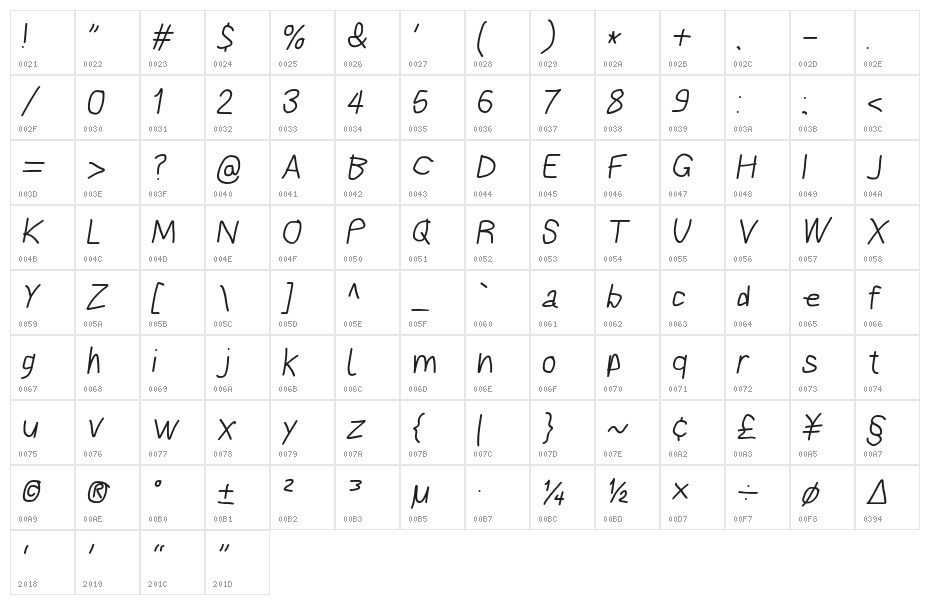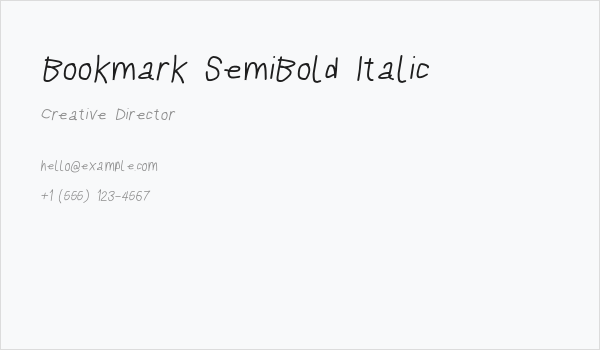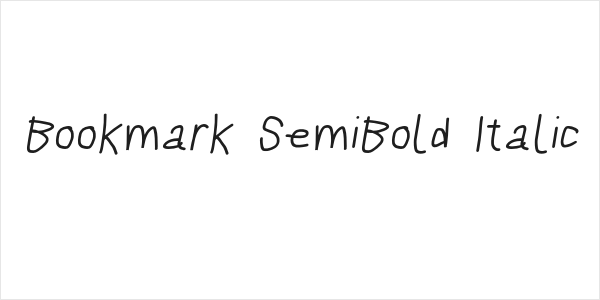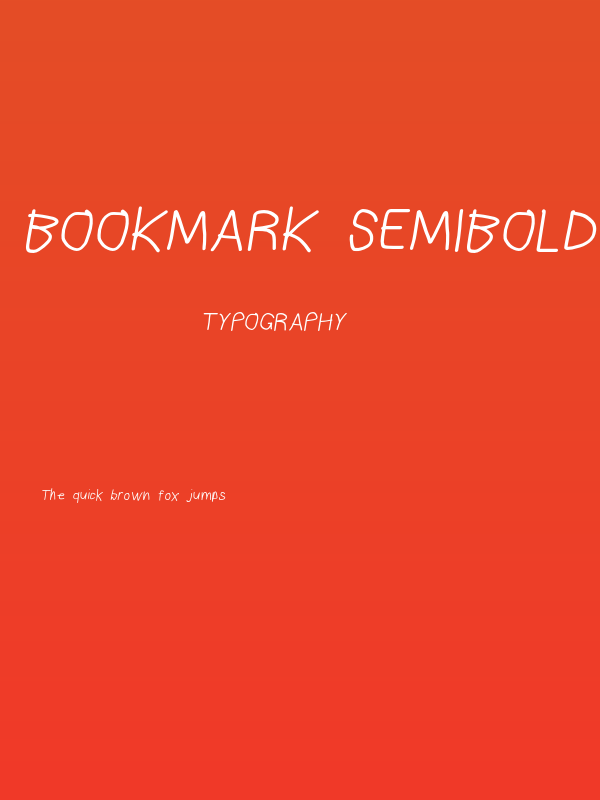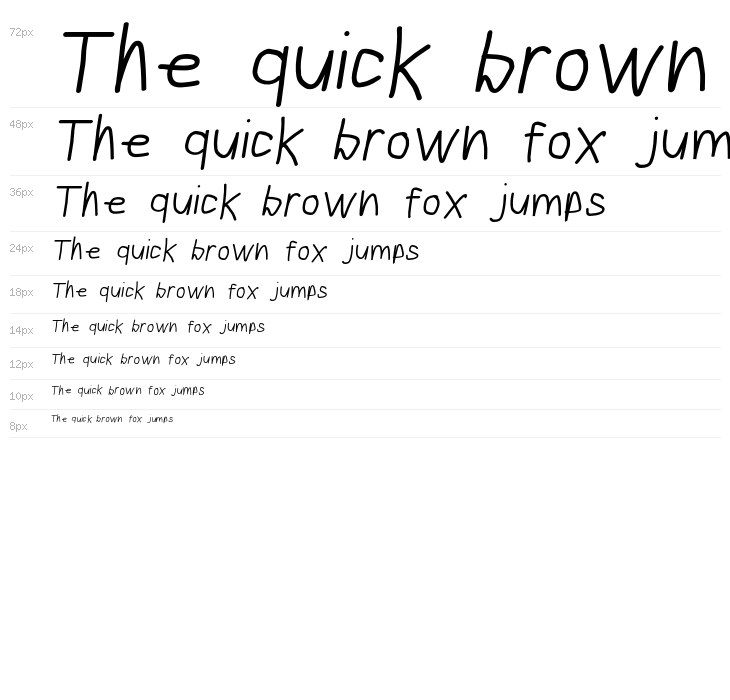
Bookmark SemiBold Italic Font
Bookmark SemiBold Italic Description
This font exhibits a playful and casual handwritten style, characterized by its semi-bold weight and italic slant. The letters are slightly elongated with a consistent stroke width, giving it a uniform appearance. The uppercase and lowercase letters maintain a cohesive look, with rounded edges and a slight tilt to the right, enhancing its informal and approachable feel. The numerals and special characters follow the same design principles, ensuring visual harmony across all characters. This font is ideal for projects that require a personal touch, such as invitations, greeting cards, or creative branding materials.